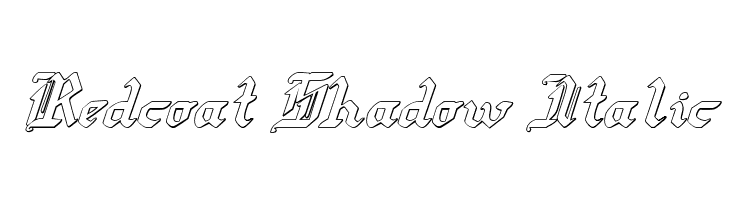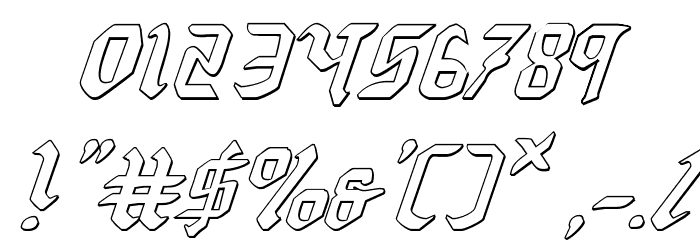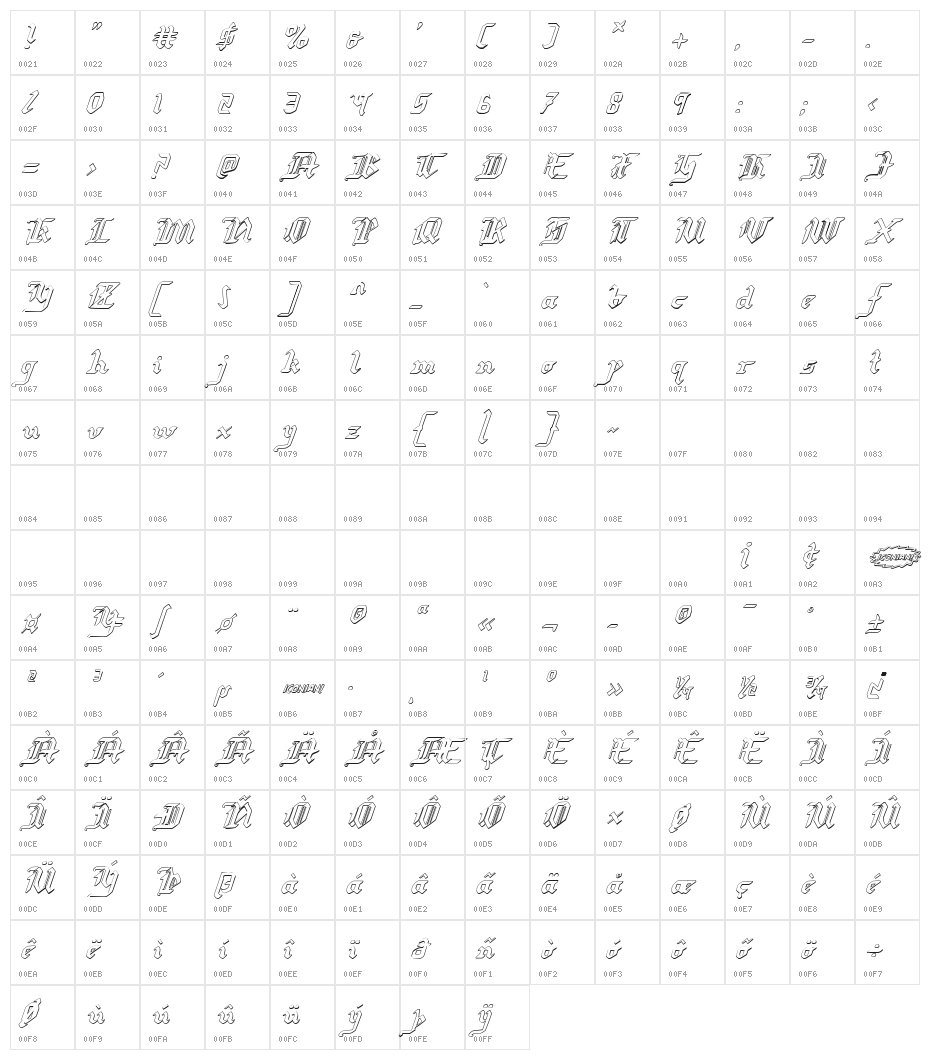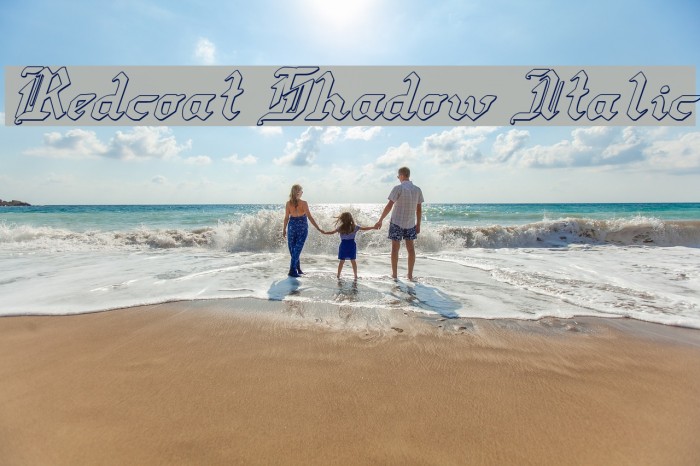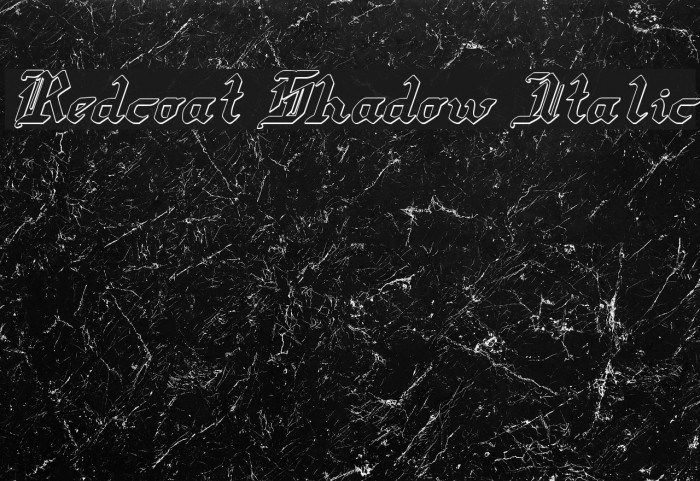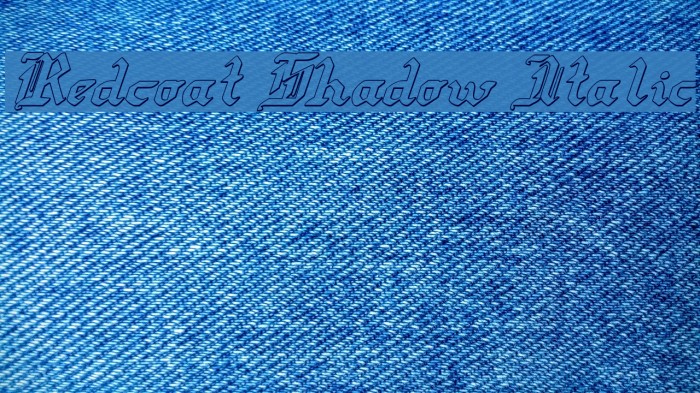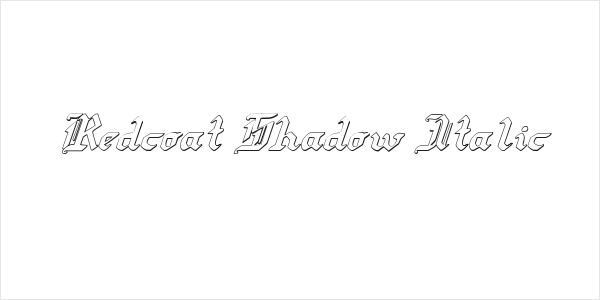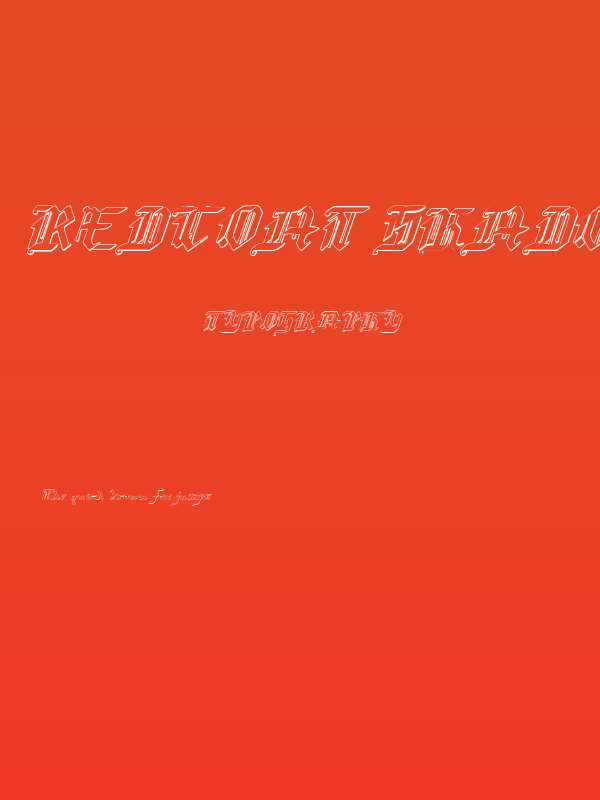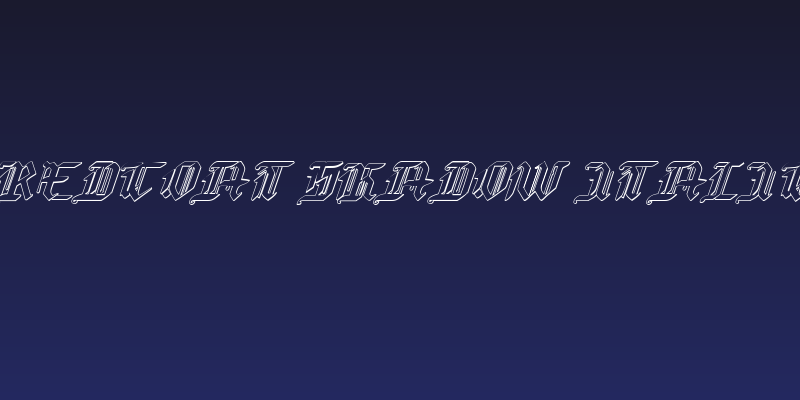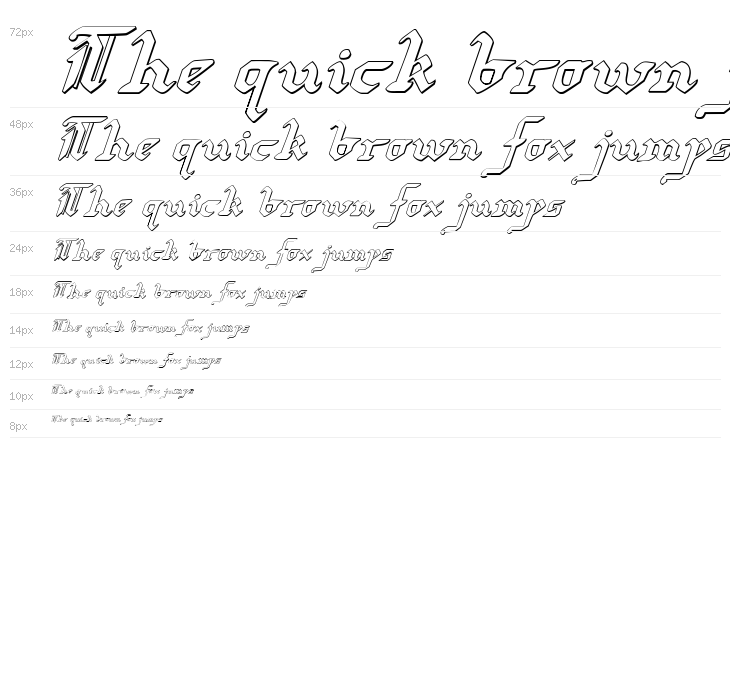
Redcoat Shadow Italic Font
Redcoat Shadow Italic Description
This font features a bold and dynamic design with a shadow effect that gives it a three-dimensional appearance. The italicized style adds a sense of movement and elegance, making it stand out. Each character is crafted with sharp angles and a distinct outline, creating a striking visual impact. The uppercase and lowercase letters maintain a consistent style, while the numerals and special characters complement the overall aesthetic. This font is ideal for projects that require a bold statement and a touch of sophistication.
Proposed ProjectsIdeal for logos, posters, and branding materials that require a bold and sophisticated look.